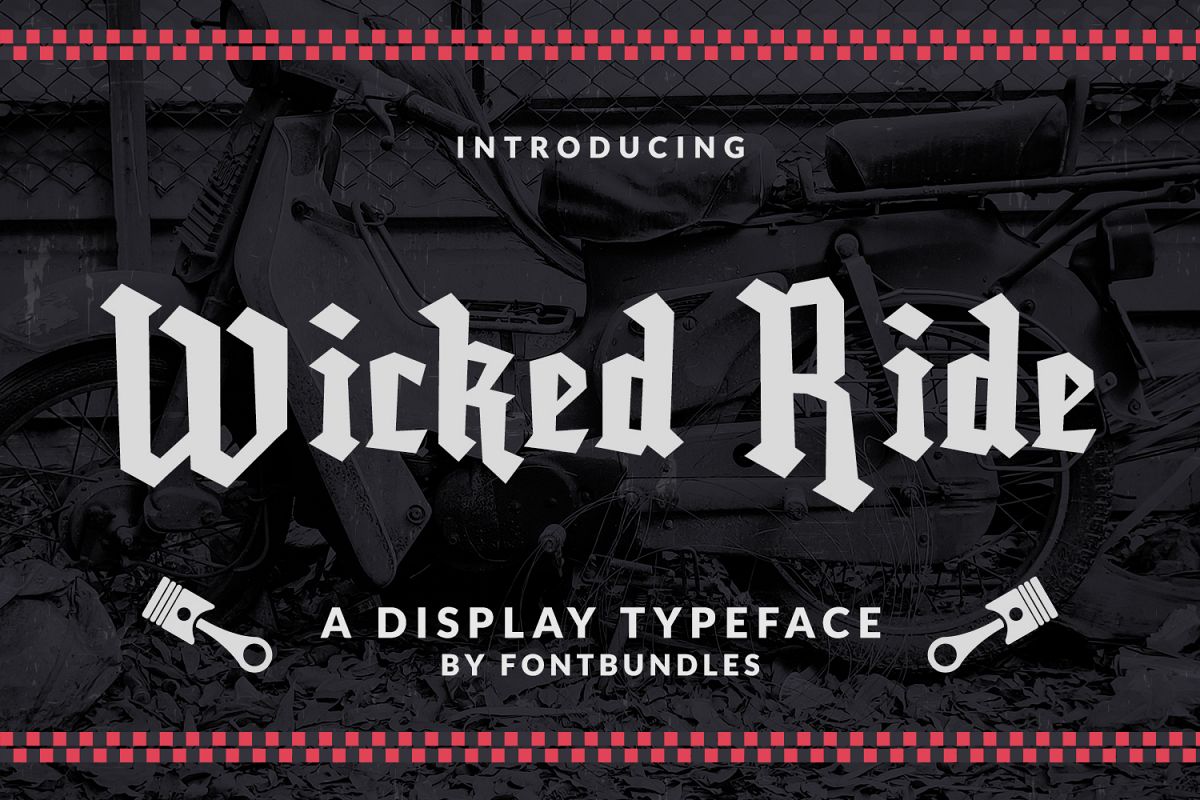
Wicked Ride
Wicked Ride is a fancy Display Typeface. Perfect for Branding, Logos, Greeting Cards, Stationery Design, Invitations, T-shirts, Apparel, Packaging designs, Posters, Typographic Design, and so much more.